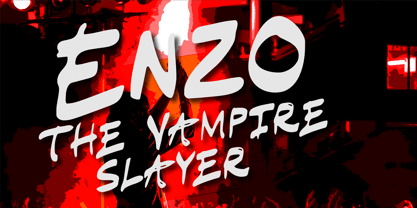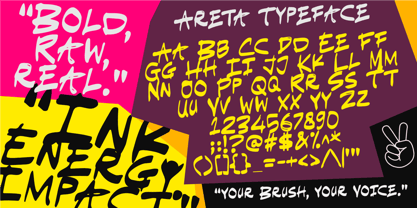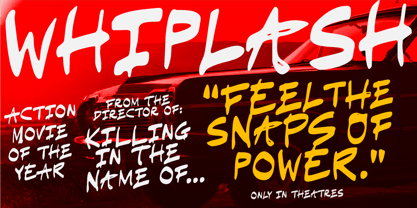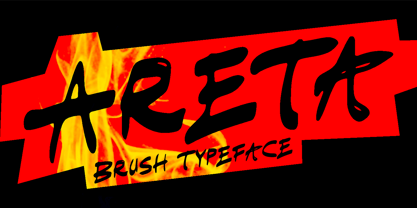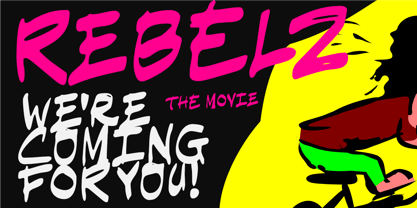
Areta
The Areta Font Family was designed by Aldy Sidik and published by Epiclinez. Areta contains 1 styles. More about this family
Areta Typeface is a bold and expressive brush font that brings handcrafted energy to your creative projects. Designed with natural strokes and raw texture, this typeface captures the perfect balance between artistic flair and professional impact. Whether you’re working on a logo design, creating a movie title, or designing a poster that needs to stand out, Areta delivers powerful visual appeal.
With its strong brush style, Areta Typeface is ideal for branding, advertising, product packaging, and modern campaigns that need a bold, dynamic edge. Its versatile personality makes it perfect for everything from eye-catching social media graphics to cinematic typography. Each letter is designed to showcase movement and creativity, giving your text a handcrafted, authentic feel.
With Areta Brush Typeface, every word becomes a statement. Bold, raw, and artistic — this font is your go-to for projects that demand personality and impact.